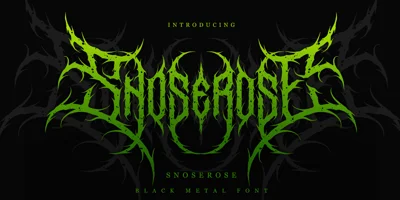
Snoserose Blackmetal Font
You can use Snoserose Blackmetal Font in metal band logos, album covers, underground event posters, tattoo-inspired artwork, horror film titles, and alternative fashion branding. It thrives in dark, aggressive, and rebellious visual themes.
What makes this font so exciting is its chaotic elegance—sharp edges, spiked serifs, and a gothic attitude that refuses to be ignored. It feels like pure audio distortion translated into letters, echoing the raw energy of black metal and underground subcultures.
Snoserose Blackmetal Font is part of a distinctive font family, usually offered in Heavy, Ultra Black, and Textured versions. This variety allows you to mix intensity levels while preserving the brutal aesthetic at the heart of the design.
Designers aiming to add a dramatic and sinister vibe to their projects should definitely explore the Snoserose Blackmetal Font. It’s perfect for standing out in loud, non-conformist, and edgy visual compositions—because sometimes, design needs to scream.